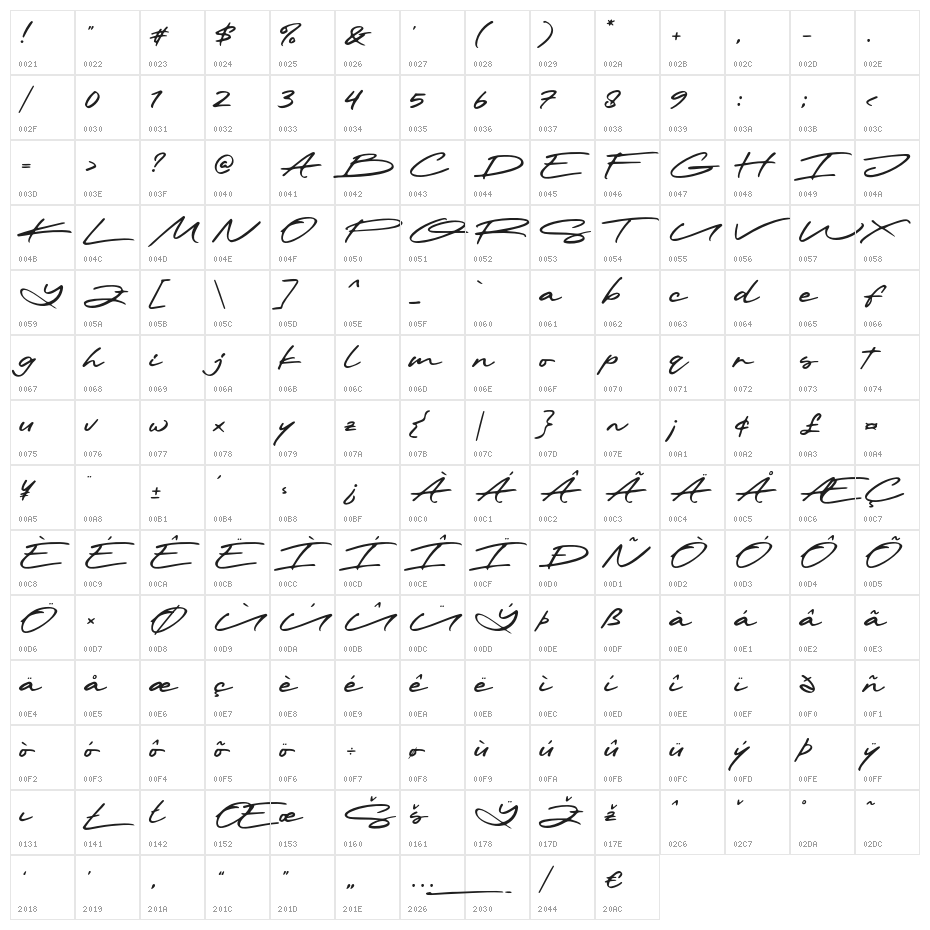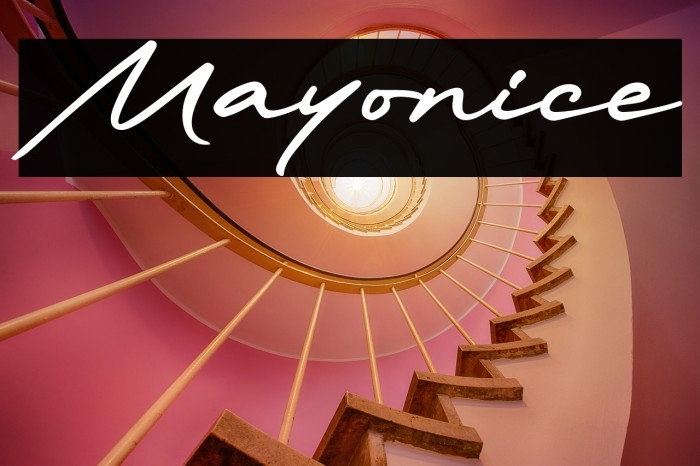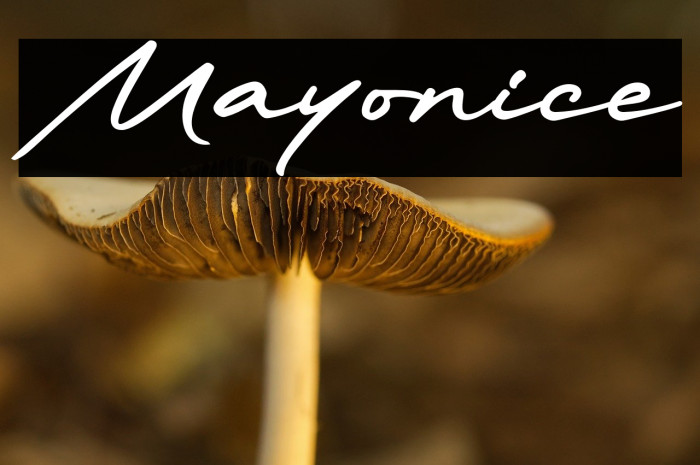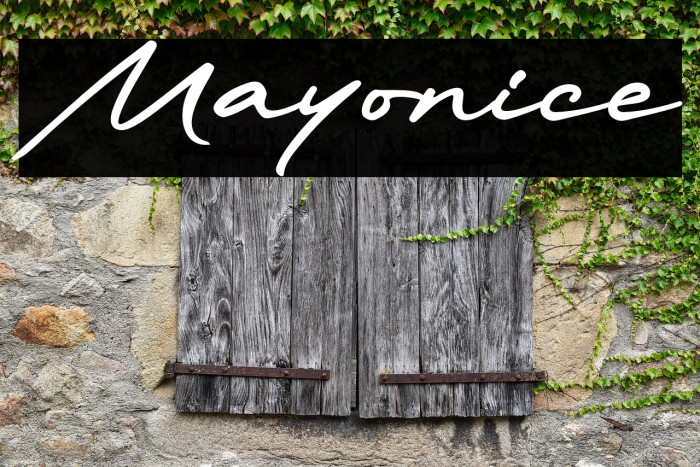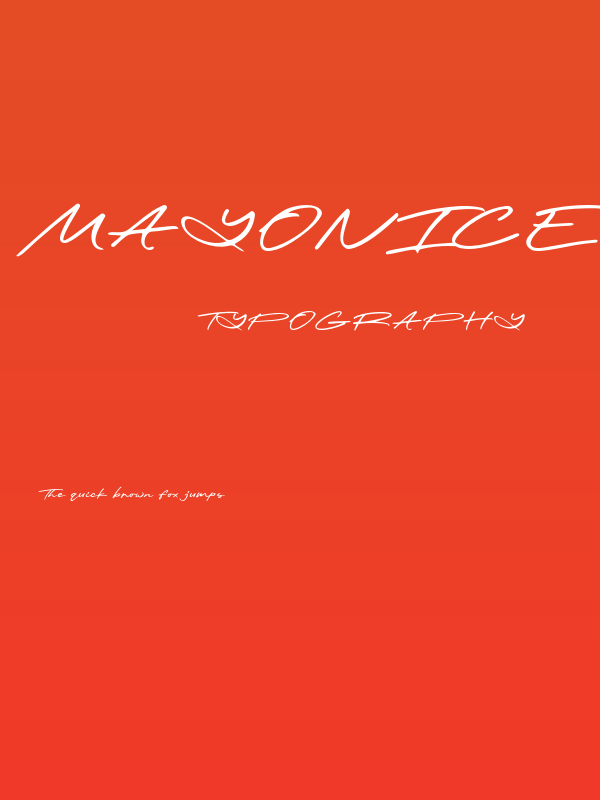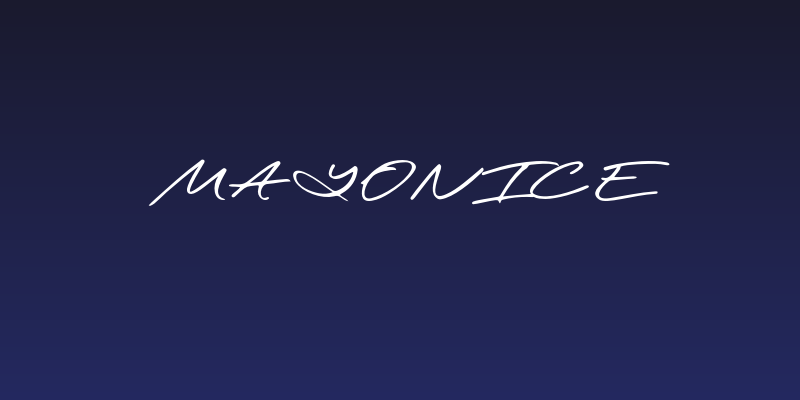
Mayonice Font
Mayonice Description
This font features a dynamic and fluid script style, characterized by its elegant and flowing letterforms. The uppercase letters are slender and slightly slanted, while the lowercase letters maintain a consistent rhythm with smooth curves and loops. The numerals are distinct and maintain the same fluidity, making them easily readable. Special characters are integrated seamlessly, enhancing the font's versatility. The overall design exudes a sense of sophistication and creativity, making it suitable for a variety of design applications.
| Proposed Projects | Ideal for wedding invitations, branding projects, personal signatures, and elegant packaging designs. |